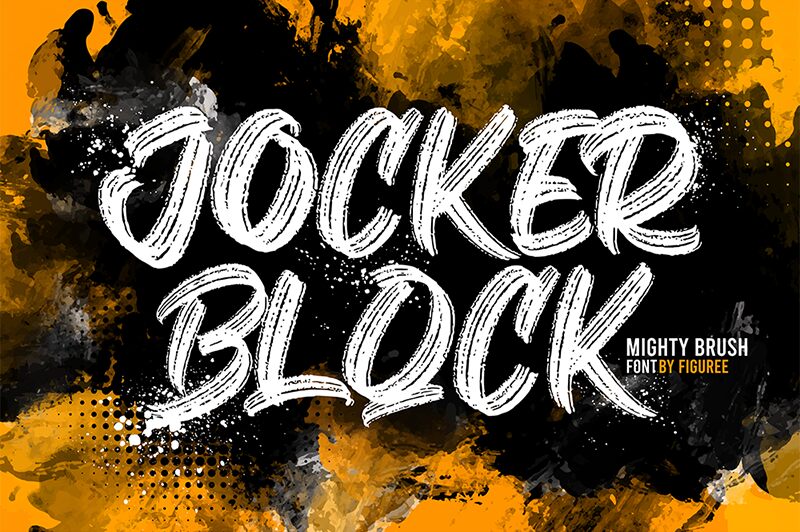
Jocker Block, a bold and dynamic brush font crafted by Figuree Studio, captivates with its raw, expressive allure. Featuring a distinctly organic and handcrafted aesthetic, this typeface exudes an unmistakable sense of energy and movement, perfectly suited for projects seeking a bold, attention-grabbing visual impact.
The striking, irregularly shaped letterforms and the seamless flow between strokes create a captivating, almost calligraphic effect, lending an artisanal charm to any design. Jocker Block's bold presence and versatile nature make it an excellent choice for a wide range of applications, from eye-catching headlines and logos to impactful branding and packaging designs.